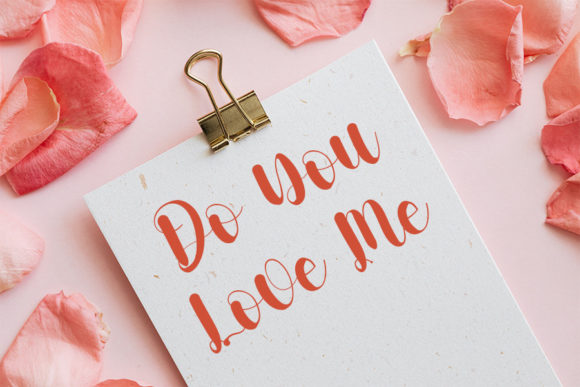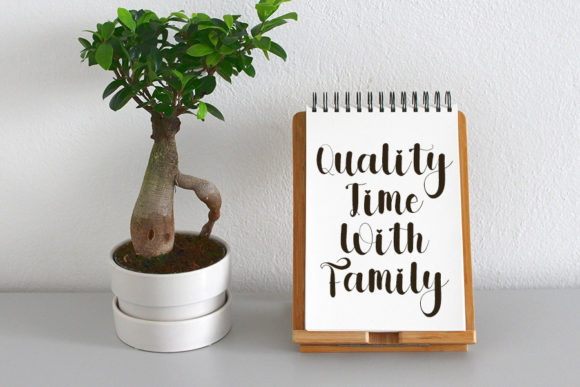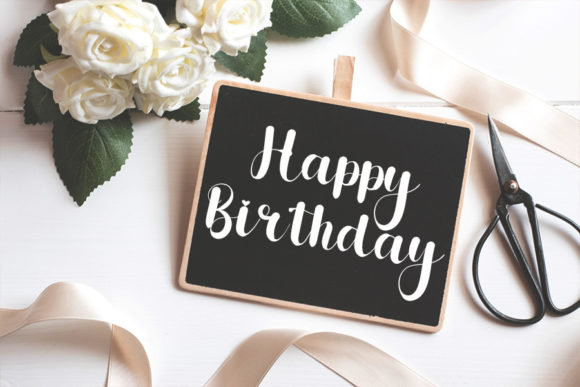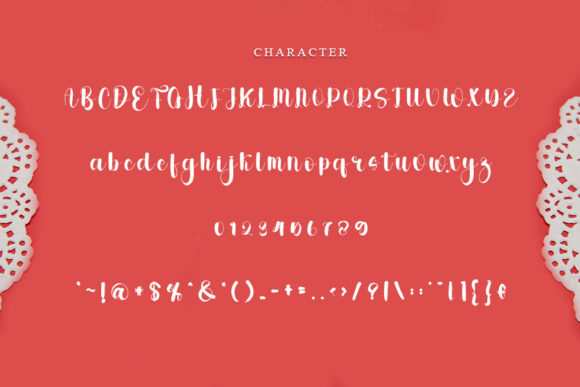
Introducing Darling Font: Elevate Your Designs with a Stylish and Confident Handwritten Style
In the world of typography, a good font can make all the difference in creating visually stunning designs. For designers and crafters looking to add a touch of personality and style to their projects, Darling Font is an excellent choice. This gorgeous and bold handwritten font is crafted to give your headlines and logotype projects a stylish touch that’s sure to leave a lasting impression.
What Makes Darling Font Stand Out?
Darling Font reads strong, confident, and dynamic, making it perfect for designers who want to create bold and eye-catching designs. Its unique handwritten style adds a touch of nostalgia to your projects, giving them a distinctive character that’s hard to replicate with standard fonts. Whether you’re working on a logo, headline, or any other design project, Darling Font is sure to elevate your work and set it apart from the rest.
Key Features of Darling Font
- Bold and Handwritten Style: Darling Font boasts a bold and confident handwritten style that’s perfect for creating eye-catching headlines and logotypes.
- Nostalgic Character: This font adds a touch of nostalgia to your designs, giving them a unique and distinctive character.
- High Versatility: Darling Font is highly versatile and can be used for a wide range of design projects, from logos and headlines to posters and packaging.
- Easy to Read: Despite its bold style, Darling Font is easy to read, making it perfect for use in both digital and print designs.
How to Use Darling Font in Your Designs
- Pair it with Other Fonts: Darling Font pairs well with other fonts, especially sans-serif fonts. Try pairing it with a clean and simple font to create a striking contrast.
- Experiment with Colors: Darling Font looks great in a variety of colors. Experiment with different colors and gradients to find the perfect look for your design.
- Use it for Headlines and Logos: Darling Font is perfect for use in headlines and logos. Its bold and confident style makes it perfect for creating eye-catching titles and branding elements.
Who Can Benefit from Using Darling Font?
Darling Font is perfect for designers and crafters who want to add a touch of personality and style to their projects. Here are a few examples of who can benefit from using Darling Font:
- Graphic Designers: Graphic designers can use Darling Font to create stunning logos, headlines, and branding elements for their clients.
- Crafters: Crafters can use Darling Font to add a personal touch to their handmade projects, such as signs, cards, and invitations.
- Small Business Owners: Small business owners can use Darling Font to create eye-catching branding elements, such as logos and signage.
In conclusion, Darling Font is a gorgeous and bold handwritten font that’s perfect for designers and crafters looking to add a touch of personality and style to their projects. Its unique and nostalgic character makes it perfect for creating eye-catching headlines and logotypes. With its high versatility and ease of use, Darling Font is an excellent choice for anyone looking to elevate their designs and create a lasting impression.